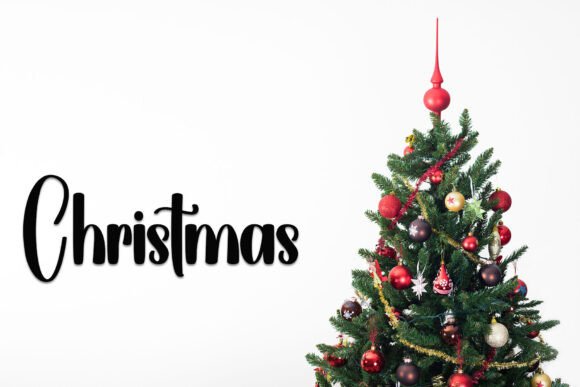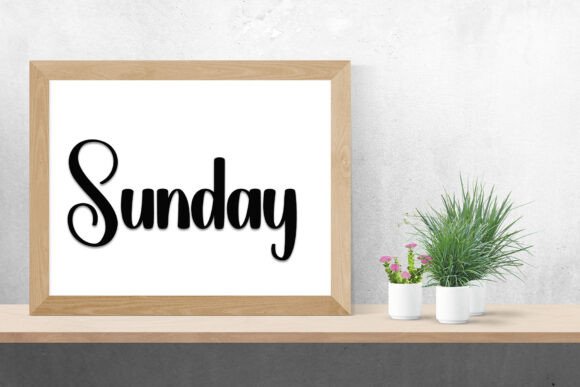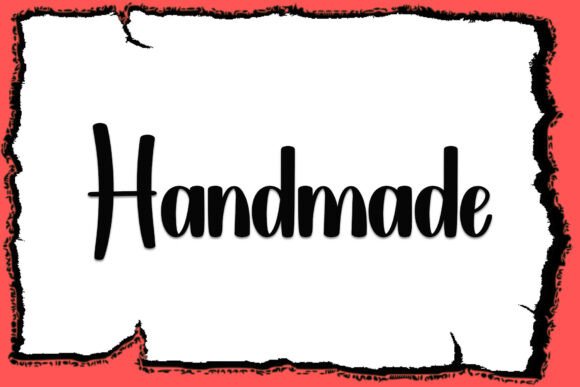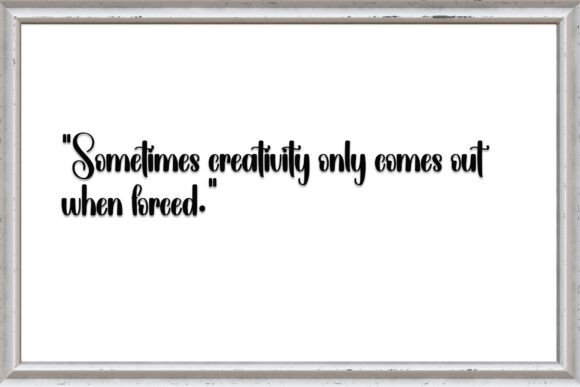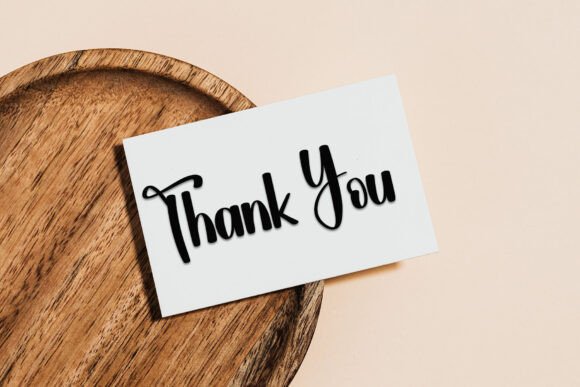
The Sweet Charm of Amastay Font: A Designer’s Delight
I’ll never forget the time I was working on a wedding invitation project, and my client asked for a font that was ” elegant, yet playful; romantic, yet not too over-the-top.” I scoured the internet, tried out countless fonts, but nothing seemed to fit the bill. That was until I stumbled upon Amastay Font. ✨ This sweet and cursive handwritten font has been a game-changer for me, and I’m excited to share its charm with you.
An Honest Review of Amastay Font
• ✨ Sweet and feminine touch: Amastay Font adds a touch of whimsy and romance to any design project.
• ✅ Highly versatile: From branding and logos to wedding invitations and greeting cards, Amastay Font fits in seamlessly.
• 🎉 Easy to read: Despite its cursive nature, Amastay Font is surprisingly legible, even at smaller font sizes.
• 💕 Emotional connection: This font has a way of evoking feelings of joy, love, and warmth – perfect for projects that require an emotional connection.
While Amastay Font is an excellent choice for many projects, there are a few things to keep in mind: 🤔
• ⚠️ Limited use in formal contexts: Amastay Font’s playful nature may not be suitable for very formal or corporate projects.
• ⚠️ Requires attention to spacing: As with any script font, be mindful of letter spacing to ensure optimal readability.
3. Experiment with OpenType features like ligatures and stylistic alternates to add visual interest.
3. Access Glyphs and OpenType features to customize your text and add unique touches.
The Story Behind Amastay Font
Amastay Font was designed with love and care by a talented type designer who aimed to create a font that would bring joy and warmth to design projects. While the designer’s story may be fictional, the font’s charm is very real.
Q: What makes Amastay Font so special?
A: Amastay Font’s unique blend of sweetness, elegance, and playfulness makes it a versatile choice for a wide range of design projects.